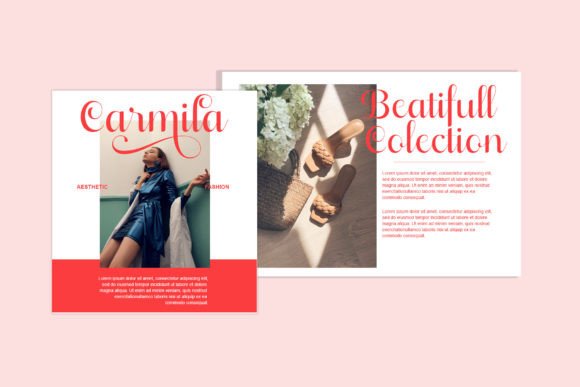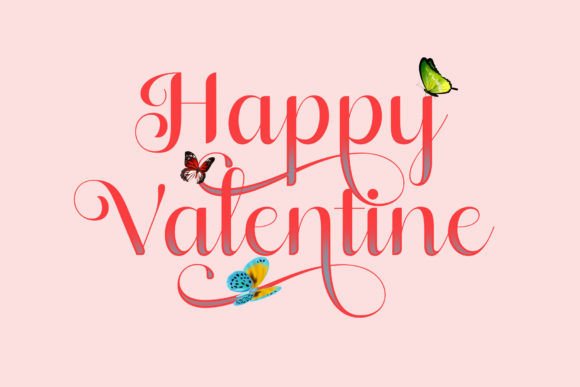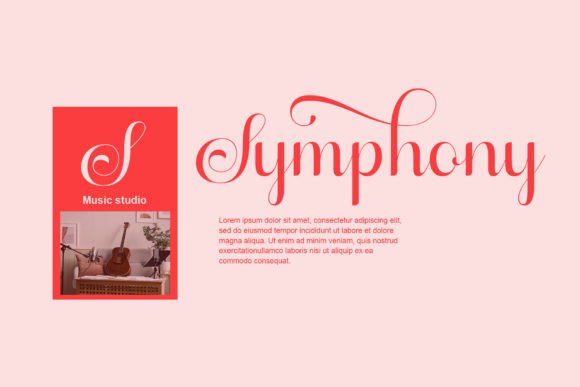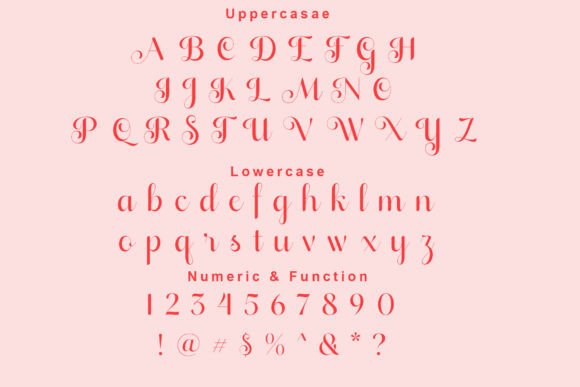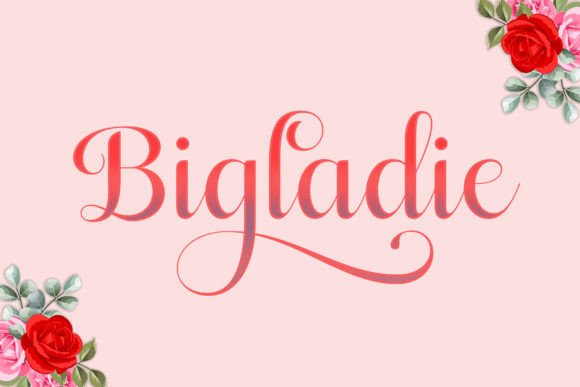
The Bigladie Font: A Stylish Handwritten Script to Elevate Your Designs
Have you ever been in the middle of a design project, and suddenly, you just can’t seem to find the right font? I recall a particularly frustrating moment when a client’s wedding invitation project required a font that exuded elegance and charm. After hours of scouring the internet, I stumbled upon the Bigladie font, and it was love at first sight! In this article, we’ll dive into the world of Bigladie, a beautiful handwritten script font that’s perfect for adding a personal and sophisticated touch to your designs.
A Personal Review: What I Love About Bigladie
Bigladie has quickly become one of my go-to fonts, and here’s why:
- ✨ Elegant and charming: Bigladie’s flowing, graceful curves make it perfect for invitations, logos, and branding projects that require a touch of sophistication.
- ✅ Delicate strokes: The font’s delicate strokes bring warmth and creativity to any design, making it ideal for projects that require a personal touch.
- 💫 Versatile: Bigladie works beautifully in a variety of design applications, from digital projects to print materials.
While Bigladie is an amazing font, there are a few things to keep in mind:
- 🤔 Legibility at small sizes: Like many script fonts, Bigladie can be a bit tricky to read at very small sizes. It’s best used at larger sizes, such as 24px or larger.
- ⚠️ Pairing with other fonts: Bigladie is a statement font, so it’s essential to pair it with a complementary font that won’t overpower it.
The Designer Inspiration Behind Bigladie
Bigladie was designed with the intention of creating a font that exudes elegance and charm. The designer, inspired by classic calligraphy and handwritten scripts, aimed to create a font that’s both sophisticated and approachable. With its delicate strokes and flowing curves, Bigladie is perfect for designers who want to add a personal touch to their projects.
| What is Bigladie font best used for? | Bigladie is perfect for invitations, logos, branding, and any design project that requires a touch of elegance and charm. |